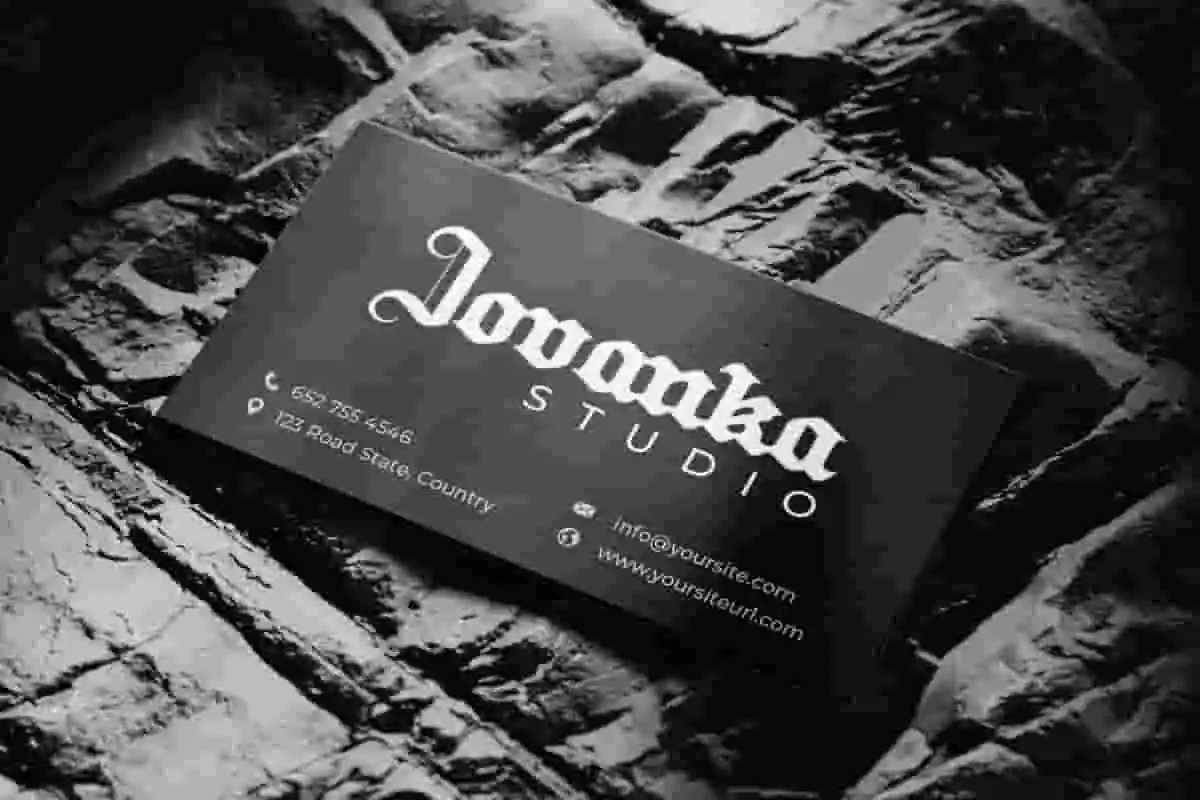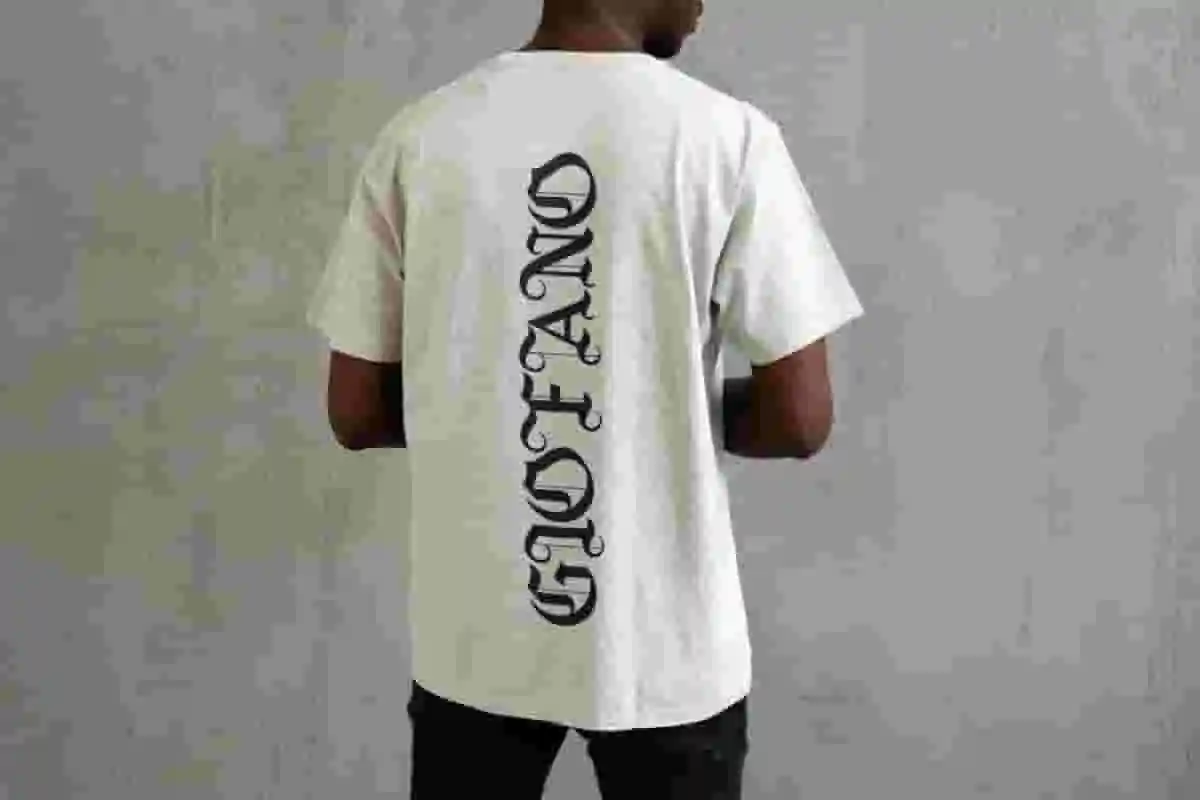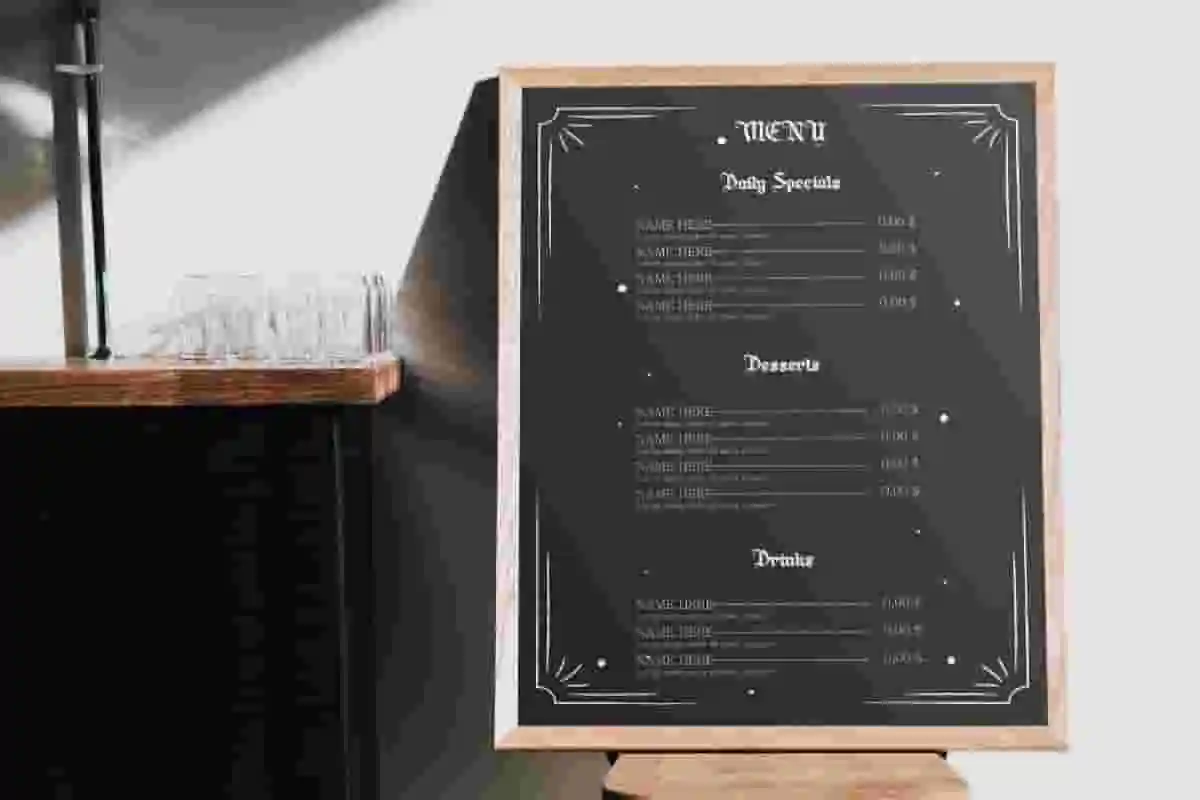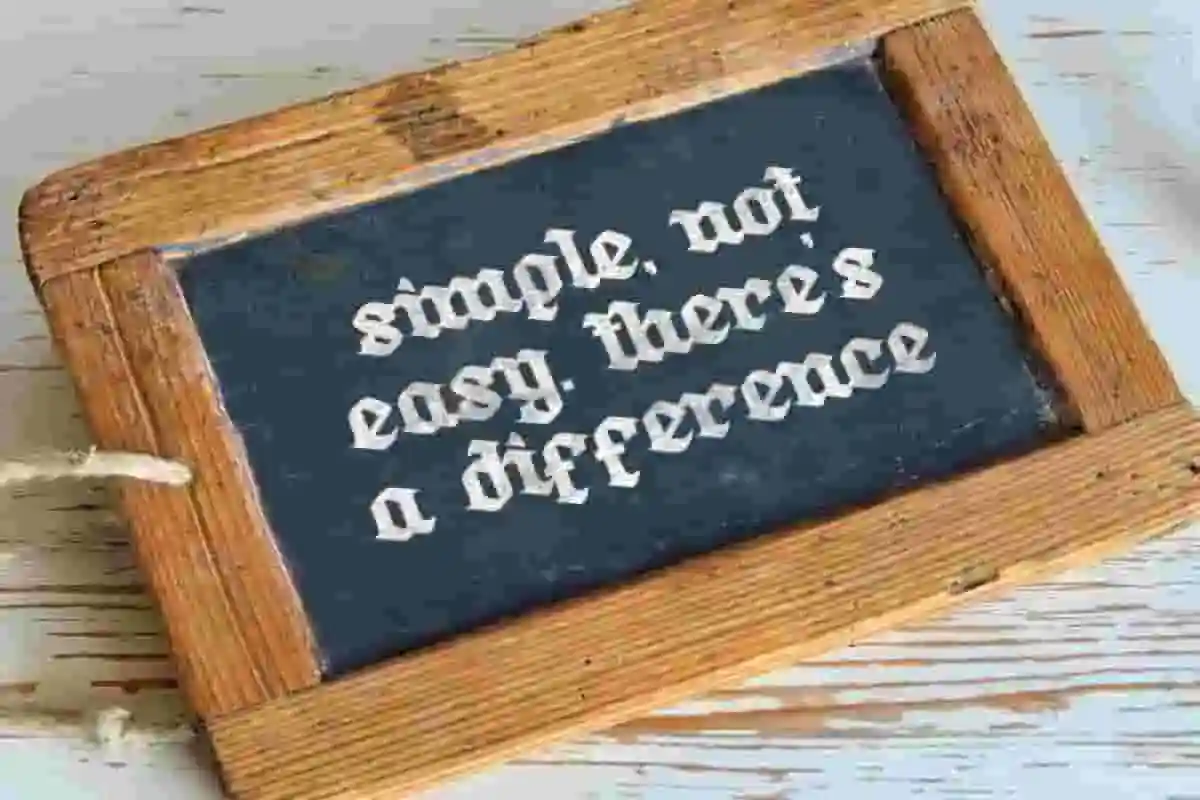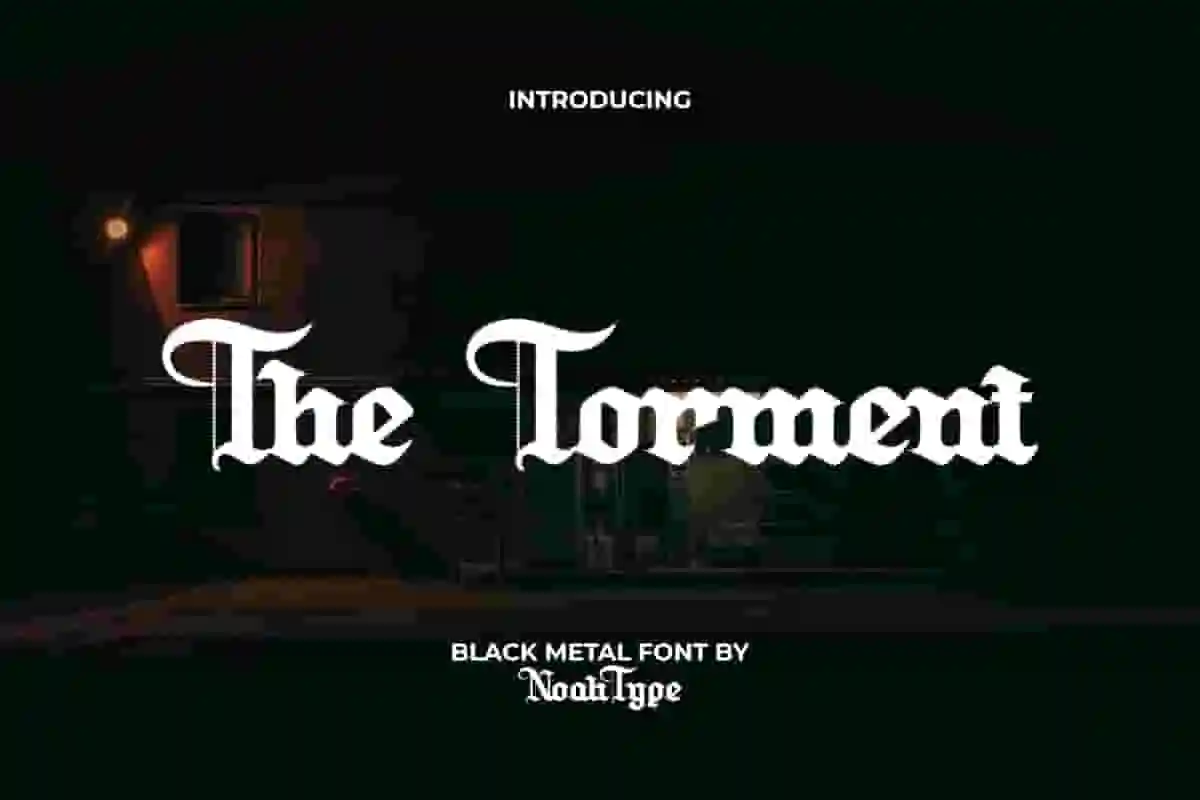
The Torment Font is a royal aesthetic black metal font, created by NoahType. This font has thick characters with jagged sides, making its appearance increasingly dominant in the design. It will be good for any designs, such as stationery, custom design, brand image, invitation, label, marketing material, menu, poster, product packaging, quotes, signage, web, and many more!
The Torment Font includes a complete set of Uppercase and Lowercase Basic Characters, Numerals, Punctuation, and Symbol. The character of this font will give amazing look and also a perfect choice for many industries, such as fashion, event or festival, game, movie, accessories, advertising, cafe, printing, publishing, etc.